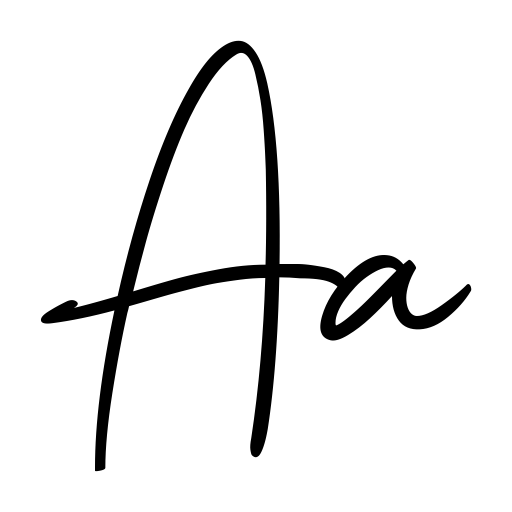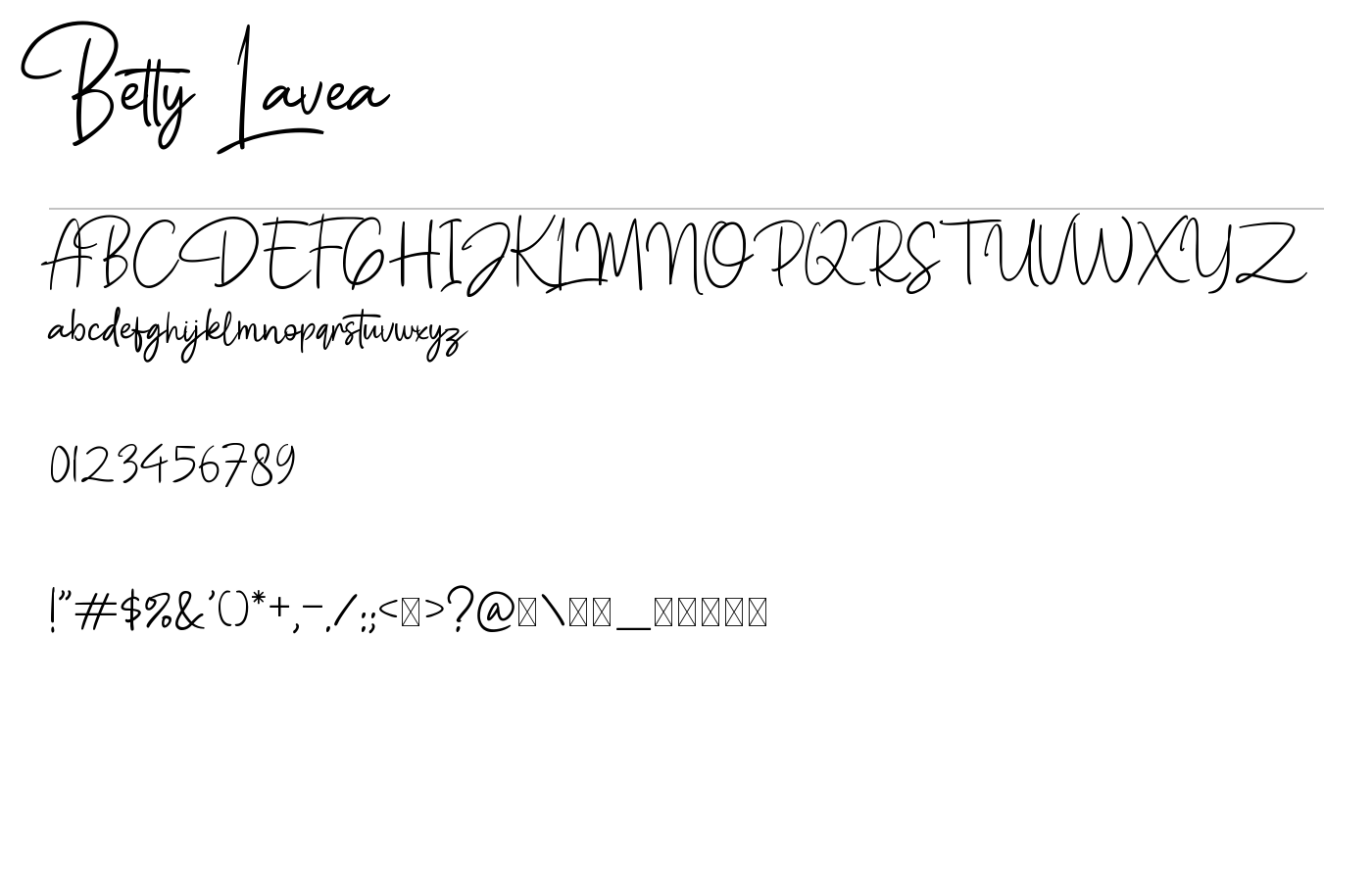
Betty Lavea is a delicate, handwritten script font characterized by its tall, slender letterforms and light stroke weight, giving it an elegant yet casual feel. Its smooth, free-flowing lines with a slightly quirky touch make it perfect for creative branding, invitations, and personal projects that seek a stylish and approachable personality. This font works especially well for logos and social media where a modern, charming, and intimate vibe is desired.
Betty Lavea Font
About Betty Lavea Font
| Designer | Salman Mashudi |